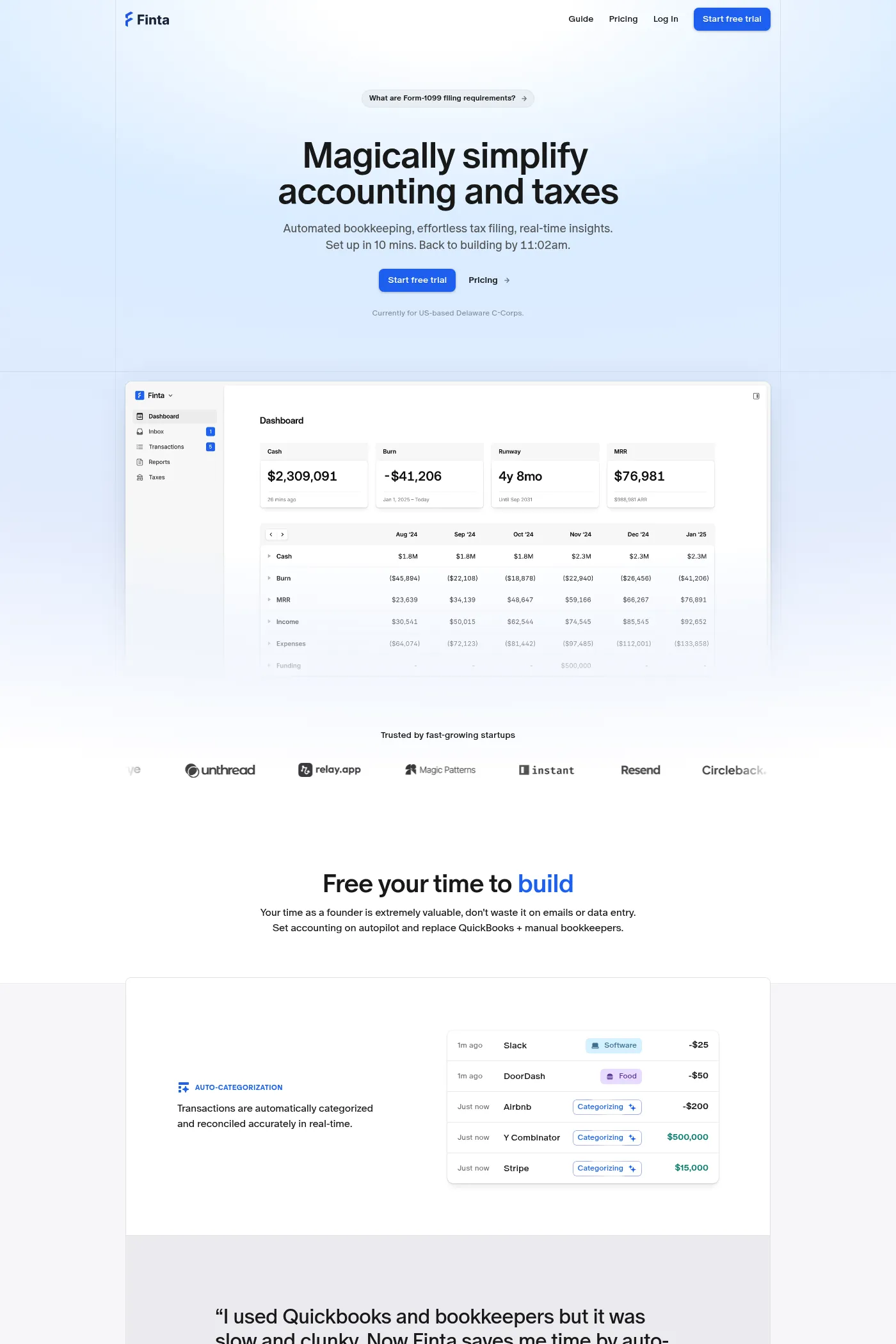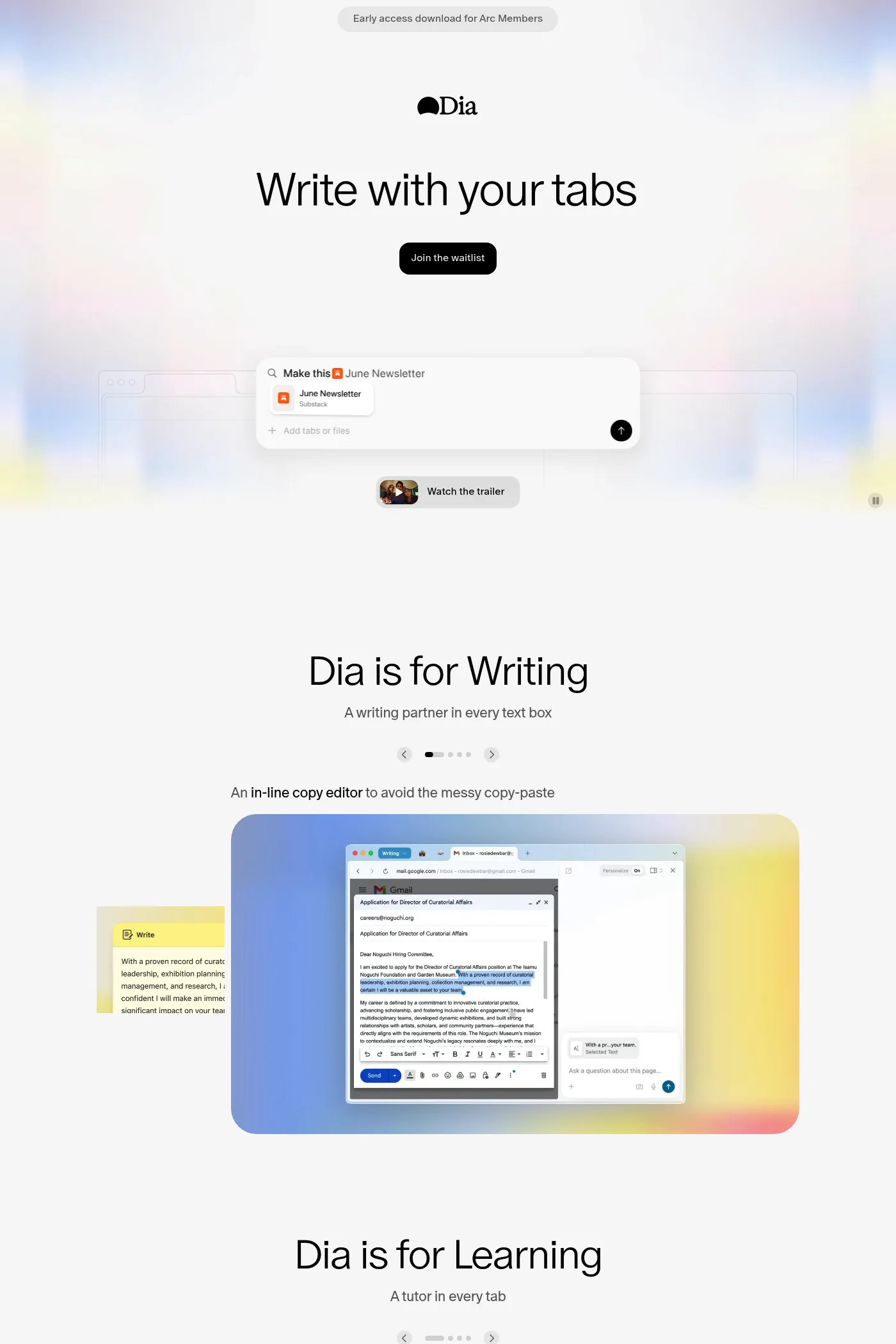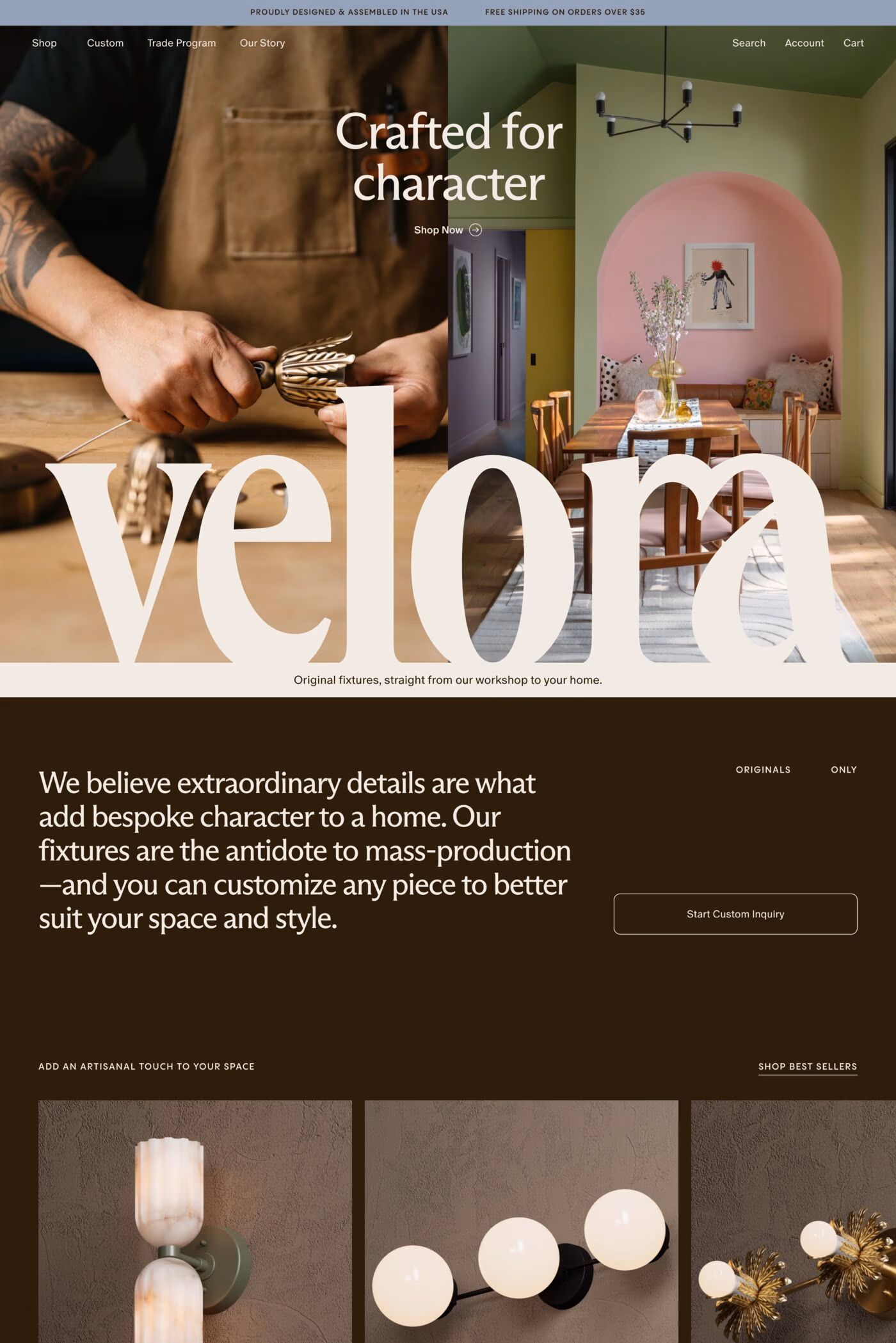
Oracle is a serif typeface from Dinamo.
Oracle is a highly-customizable, elegant san serif with friendly, smooth contours and subtle contrast.
A1 features 4 websites using Oracle, including State of Create, Finta, and Velora Home. They lean towards Gradients, Animated, and Big type design styles, and they’re most often built with Next.js and Shopify.